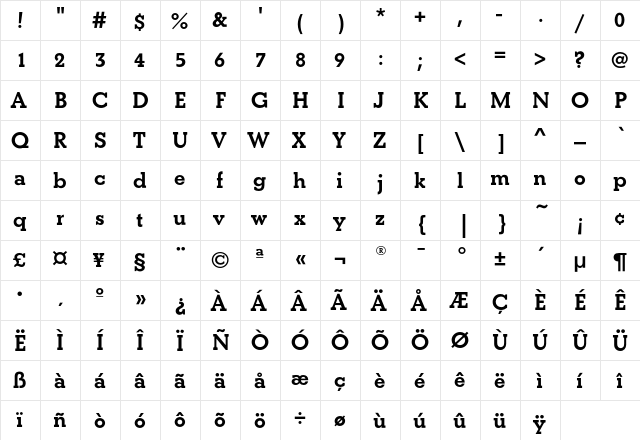
BetonEF Bold
Design Context for BetonEF Typeface
BetonEF takes a measured approach to typography — its balanced proportions and neutral character make it a reliable workhorse for both digital and print work. The heavy weight commands attention and anchors typographic hierarchies.